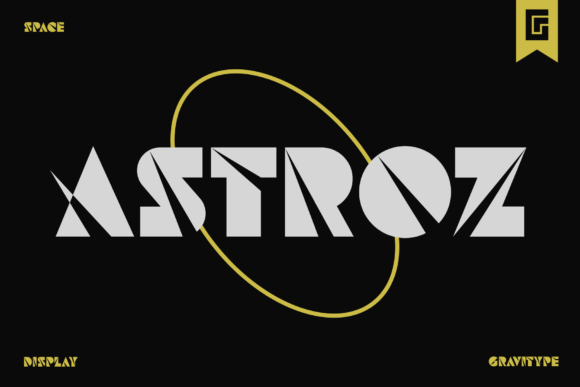
Step into the cosmos with Astroz Font, a display font that captures the essence of science fiction and space exploration. Its sharp lines and bold characters, reminiscent of towering spaceships and glistening constellations, will bestow a futuristic charm upon your designs. Suitable for digital and physical material, Astroz Font is the perfect choice for logos, headlines, and posters that aim to leave a lasting impression.
This font family is a visual masterpiece, inspired by the boundless expanse of space and the wonders it holds. Astroz Font will transport you to a world of celestial beauty, where innovation and creativity intertwine. Its striking appearance is sure to captivate your audience, leaving them in awe of your artistic vision.
With Astroz Font at your disposal, you possess the power to create awe-inspiring logos that command attention and make a statement. Design headlines that are as bold and enigmatic as the night sky itself. Craft posters that ignite imaginations and transport viewers to uncharted territories. The possibilities are as boundless as the universe itself.
Don't settle for ordinary fonts that blend into the background. Embrace the extraordinary with Astroz Font. Let your designs soar beyond the boundaries of convention and leave an indelible mark in the hearts and minds of your audience. Experience the allure of space and the infinite potential it holds for creative expression. Your designs deserve nothing less than the stellar brilliance of Astroz Font.